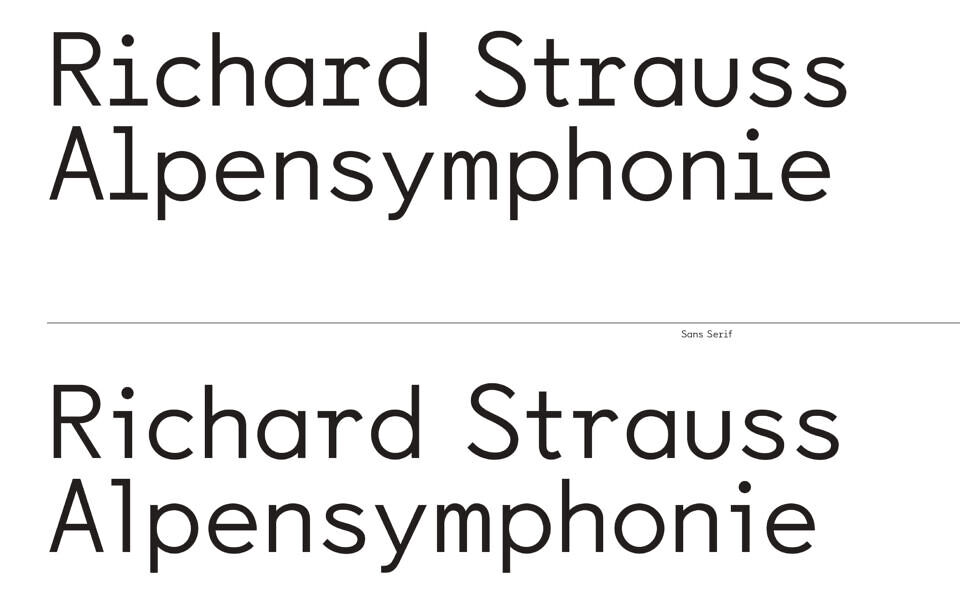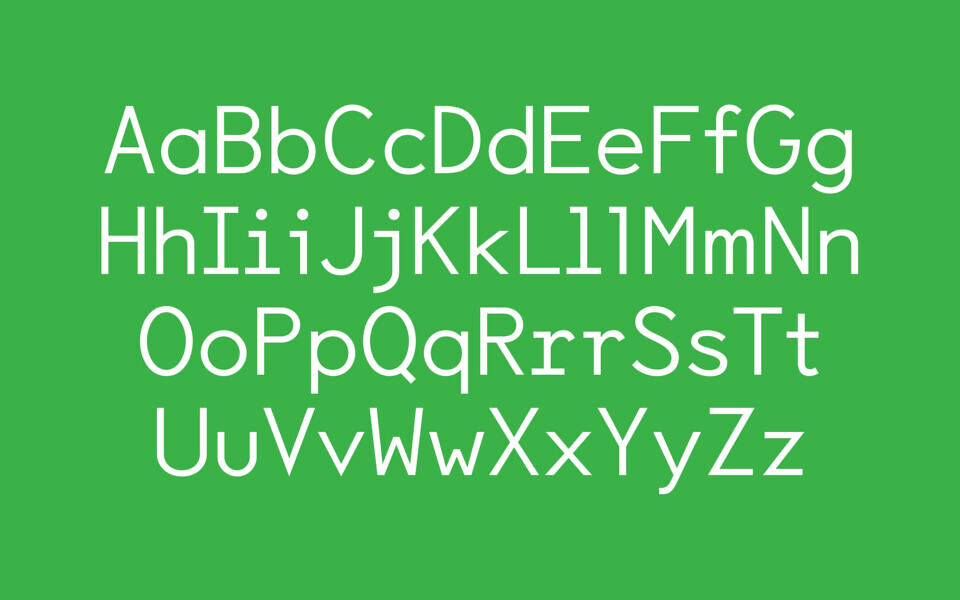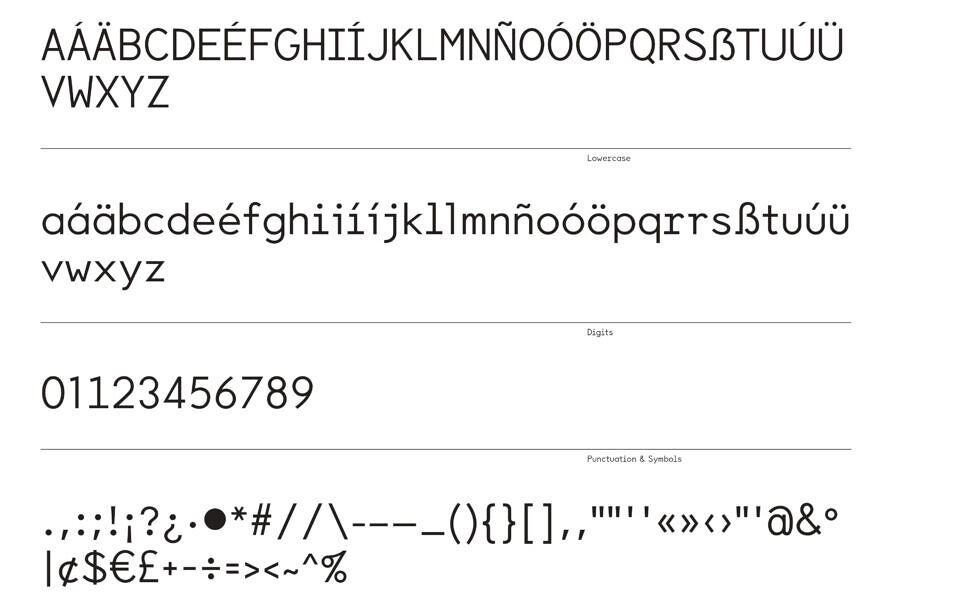
Toronto is a semi-faithful revival of the Rarotype typewriter font Ro 44 Toronto. The original design was strictly monospaced, reflecting the technical limits of typewriters. In this version, the spacing has been adjusted to a semi-mono structure, maintaining the mechanical rhythm of the source while allowing for more balanced text flow and improved legibility. The weight has been slightly reduced to suit digital rendering.
The sans-serif OpenType alternates were inspired by Thomas Wyse, a member of the Antique Typewriter Collectors internet group who provided physical samples of the original Ro 44 Toronto. On his machine, the slugs for the letters r, l, and i had been filed down for simplified sans-serif forms.